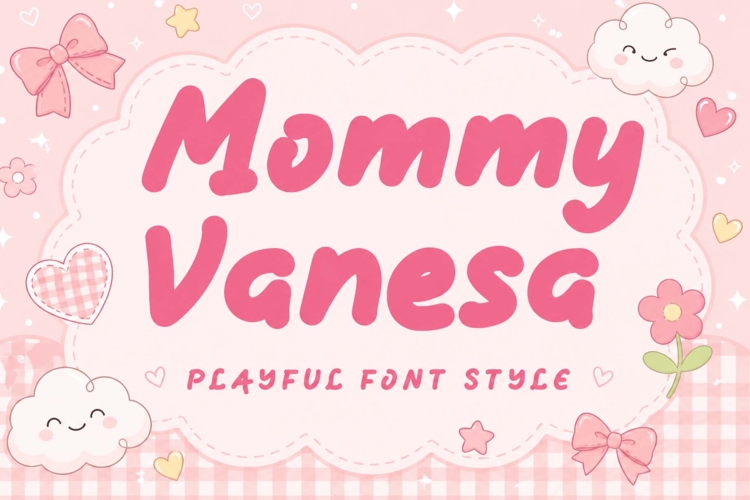
“Mommy Vanesa” is a unique and elegant display font. It features uppercase and lowercase letters, numbers, punctuation, and multilingual support. It’s perfect for Mother’s Day, summer, spring, Easter, holidays, celebrations, back to school, Christmas, Halloween, banners, posters, logos, patriotic prints, branding, Mother’s Day, St. Patrick’s Day, Teacher’s Day, and more.